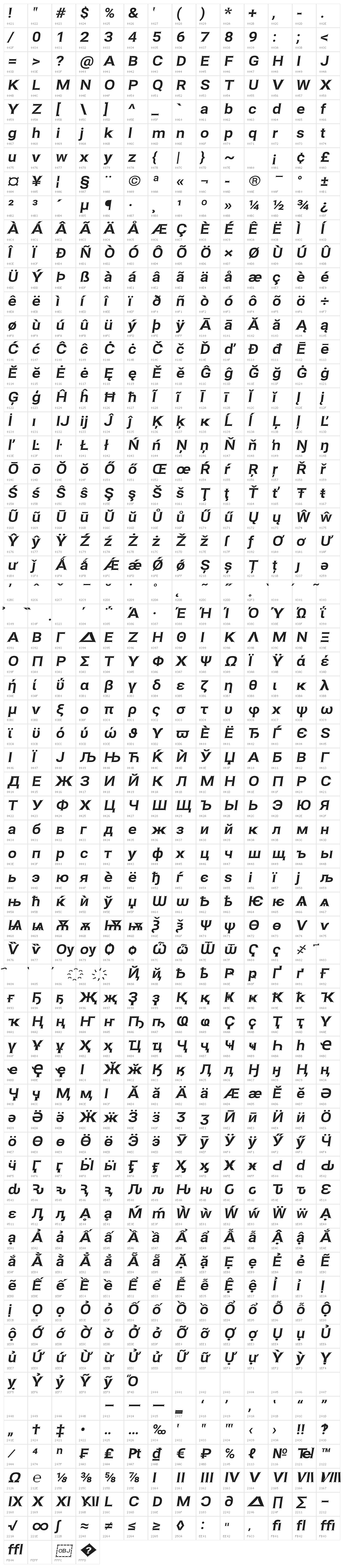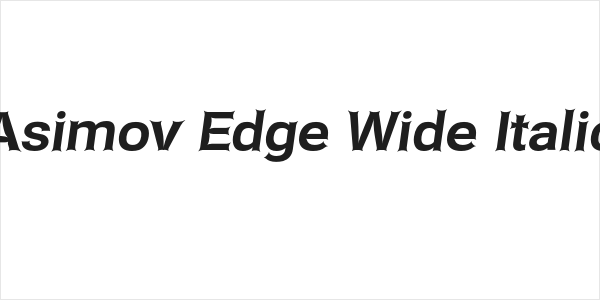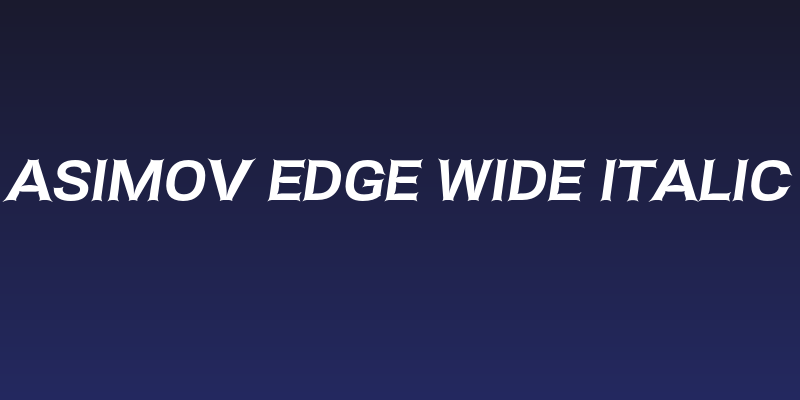
Asimov Edge Wide Italic Font
Asimov Edge Wide Italic Description
This font features a bold and dynamic style with a distinct italic slant, giving it a sense of motion and energy. The characters are wide and have a strong presence, making them highly legible and impactful. The strokes are consistent in weight, contributing to a uniform appearance across all characters. The design includes sharp, angular serifs that add a modern edge to the overall look. The numerals and special characters maintain the same bold and italicized characteristics, ensuring cohesion throughout the typeface. This font is suitable for projects that require a strong visual impact and a contemporary feel.